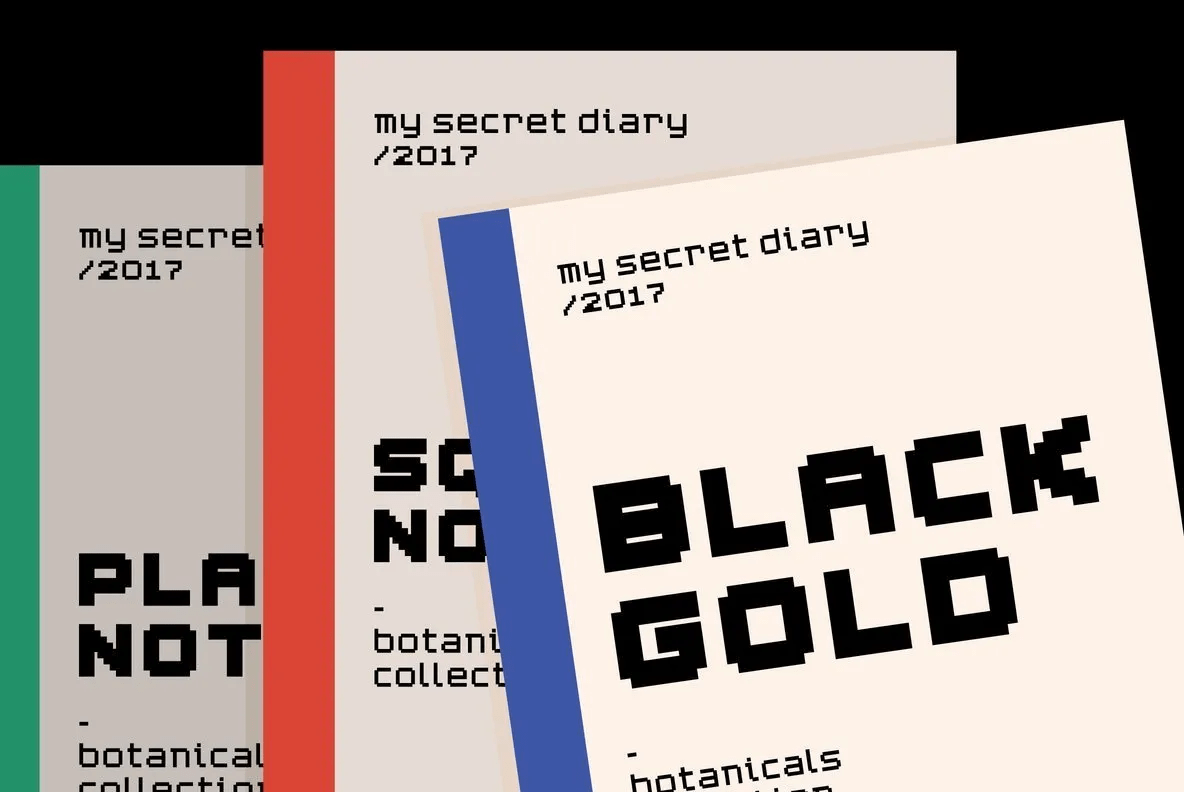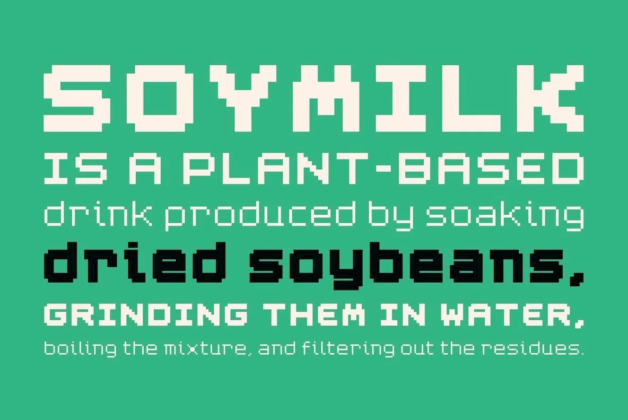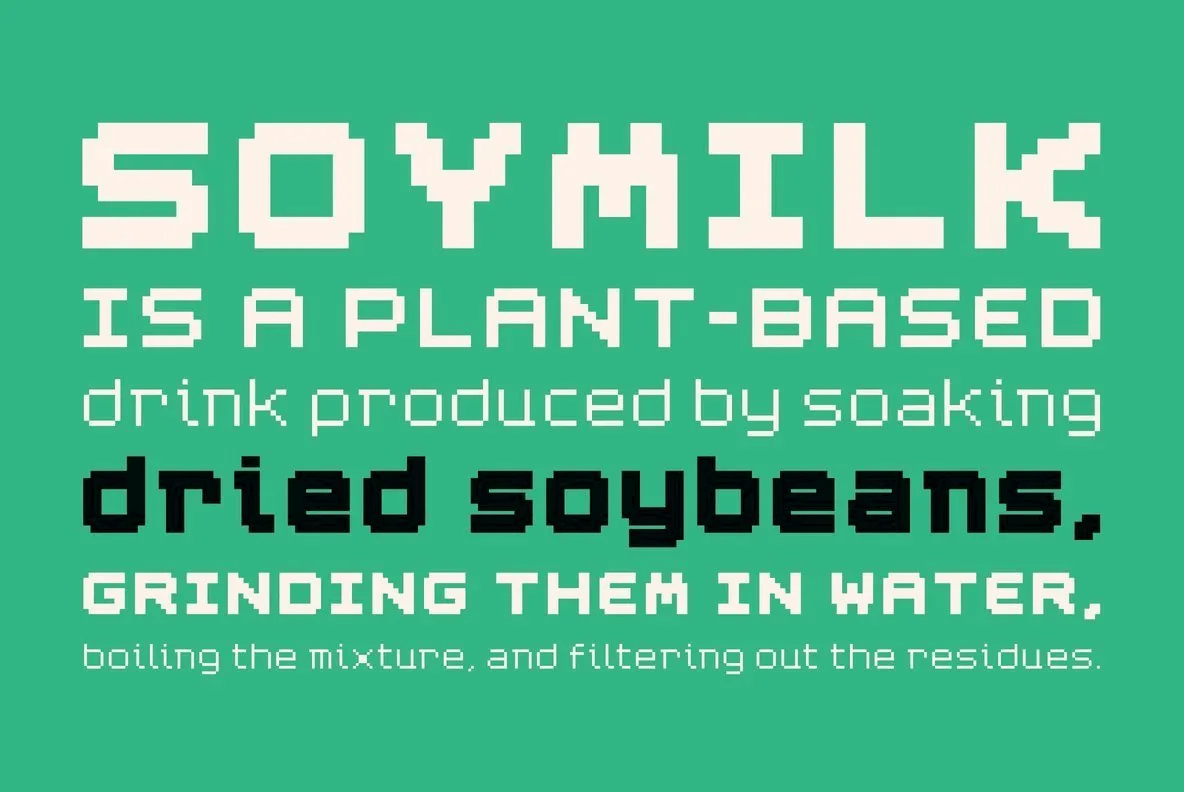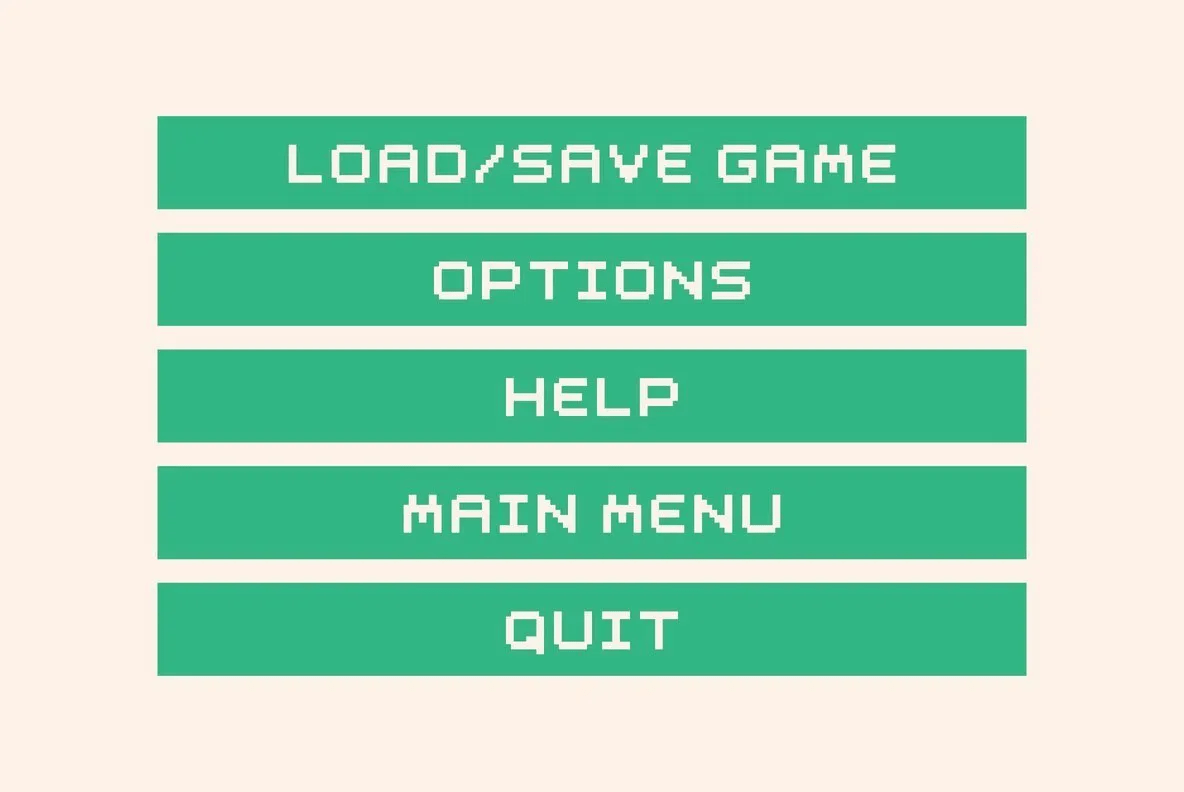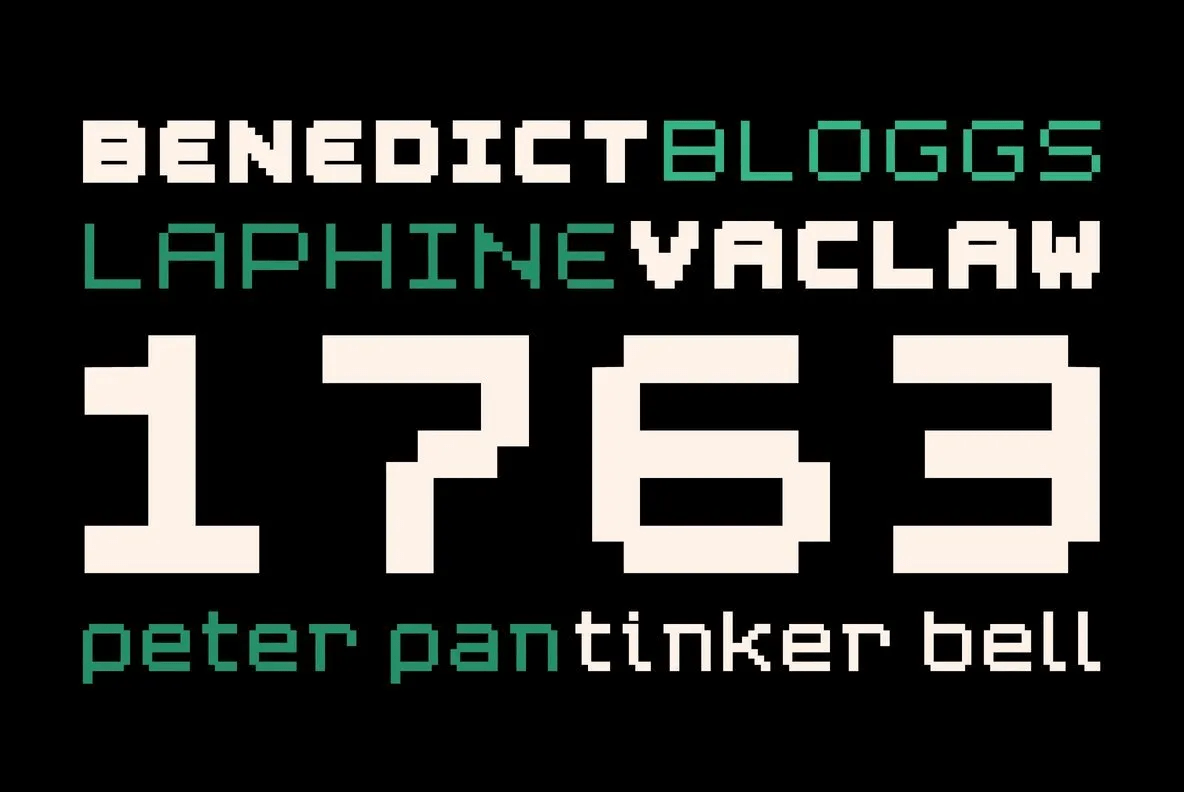
About YWFT Blackgold
Challenging Stage! YWFT Blackgold was originally designed as a second extension to YWFT Caliper. It is a thick, chunky, video game-inspired pixel font that works great in digital- and retro-themed projects. (And of course for entering your name in the…